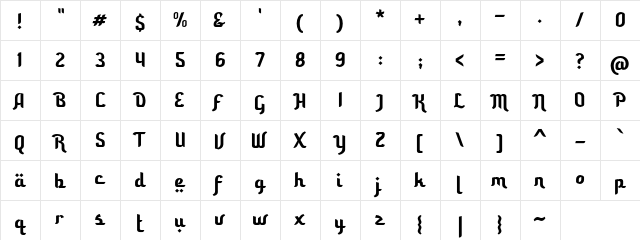
a Awal Ramadhan Regular
| Designer | Wahyu Eka Prasetya |
Design Context for a Awal Ramadhan Typeface
a Awal Ramadhan is a composed and adaptable typeface that performs quietly and consistently across a wide range of design contexts.